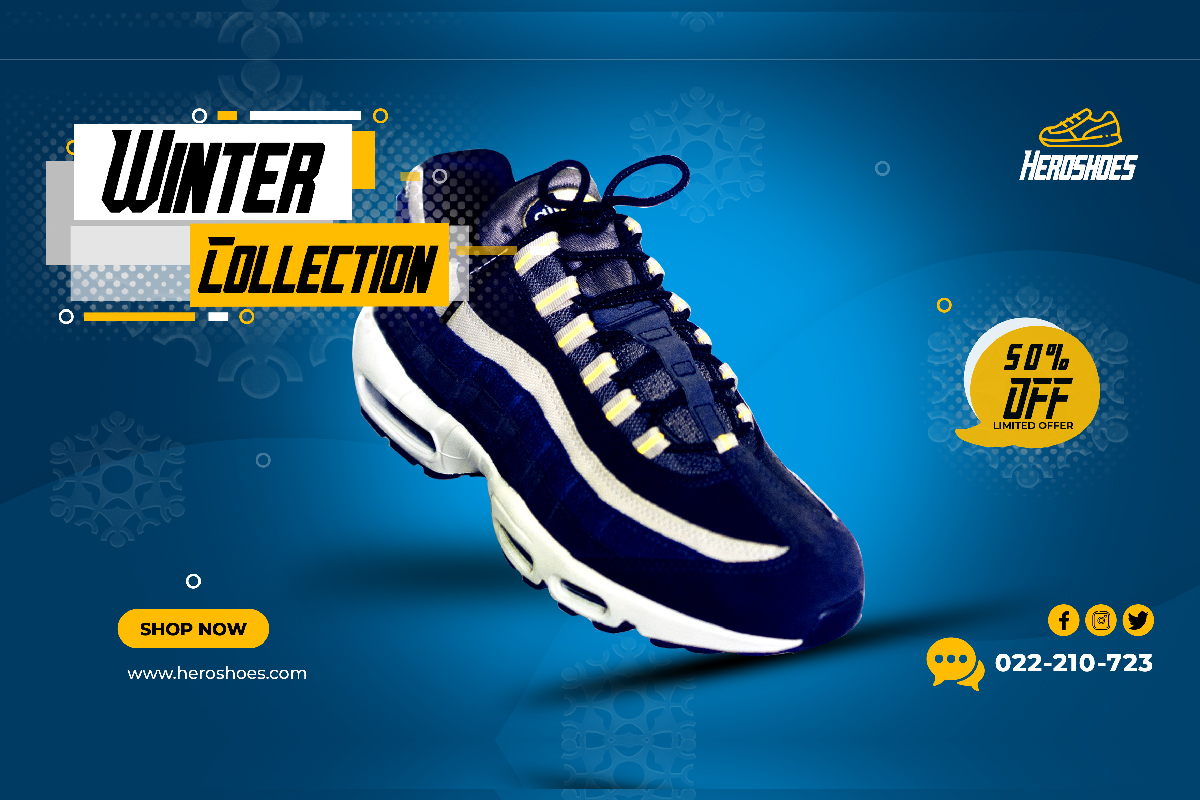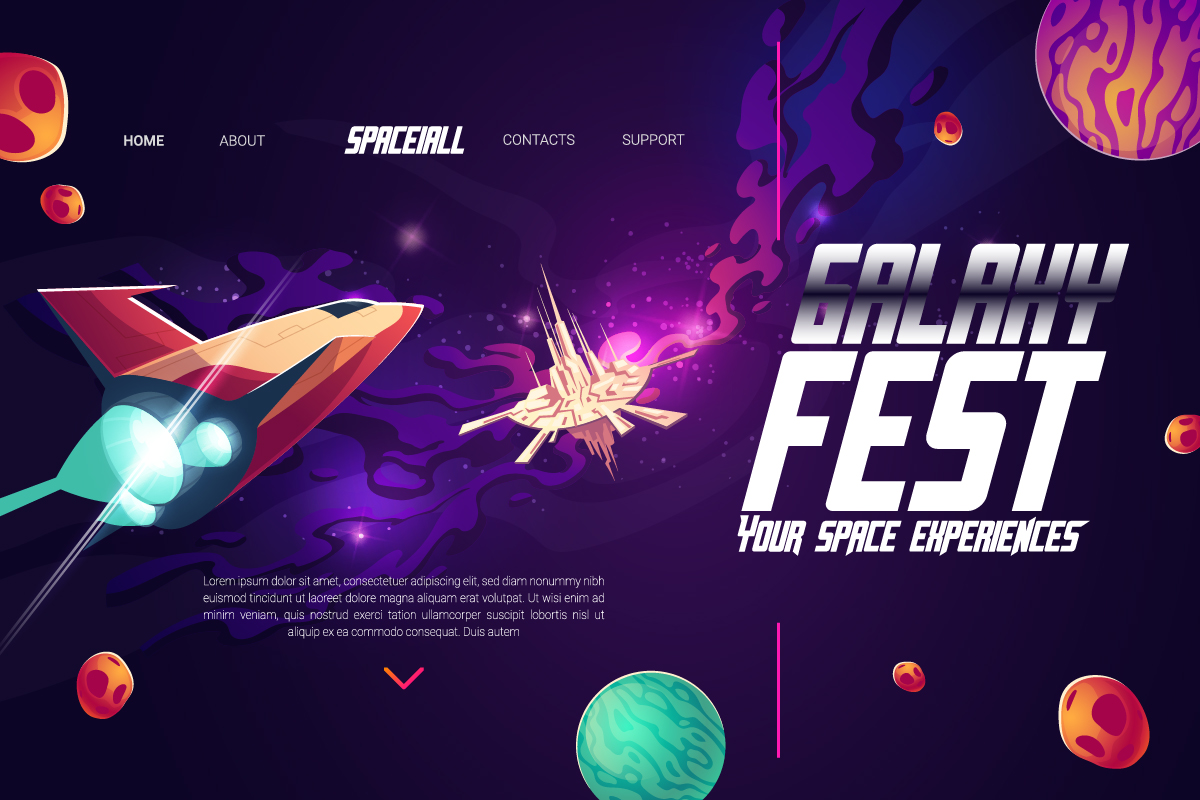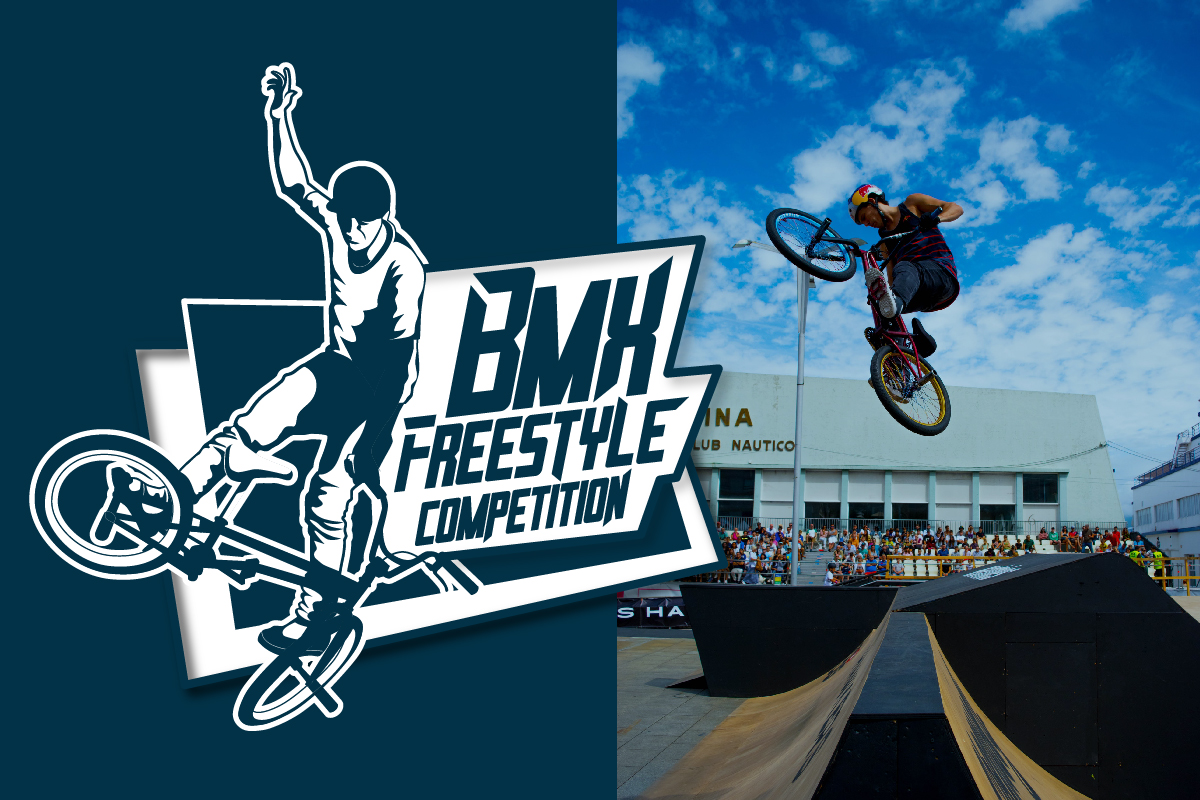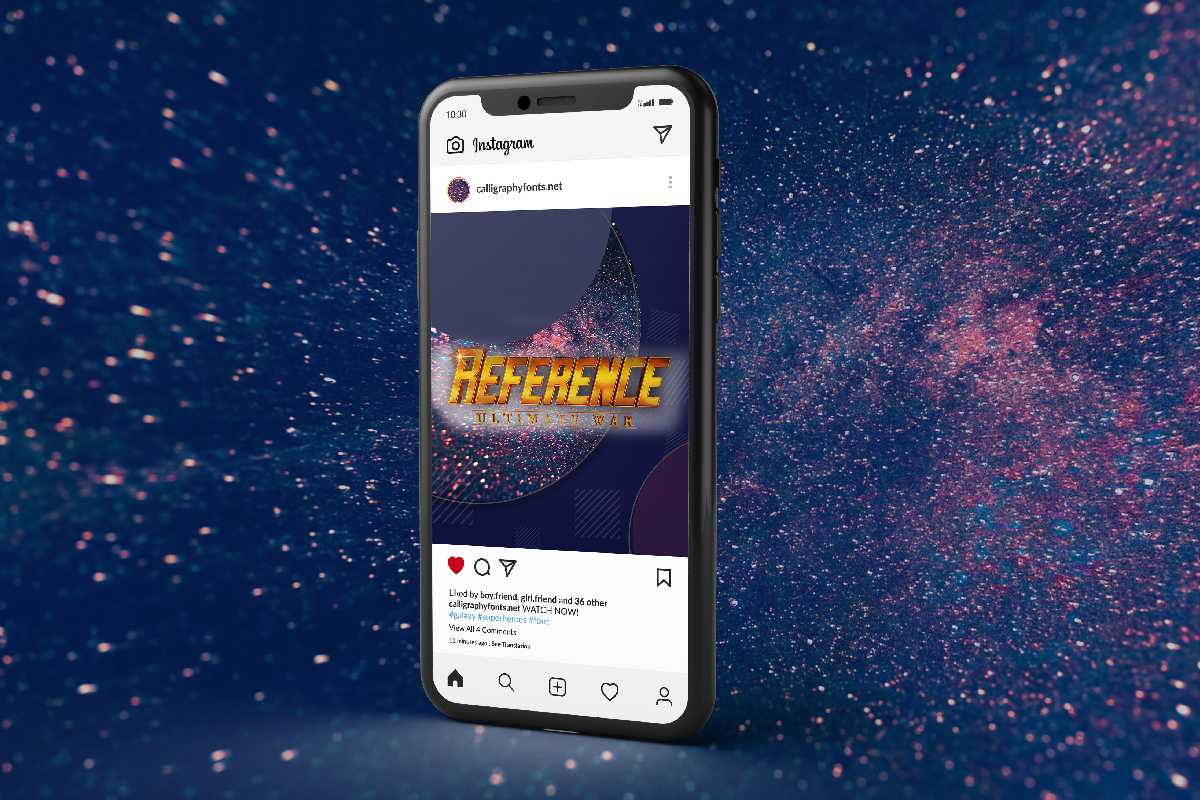
Patriotics Font
Patriotics Display Font
This is a strong sporty sans serif font family inspired from super hero movies. The style of this font are modern, techno, strong, masculine, sporty etc. Great for logo, brandings, headlines, signage etc. Patriotics Font come with strong unique characters that will make your designs standout. The font will be awesome for many industries including : sports, techno, festival, games, movies etc